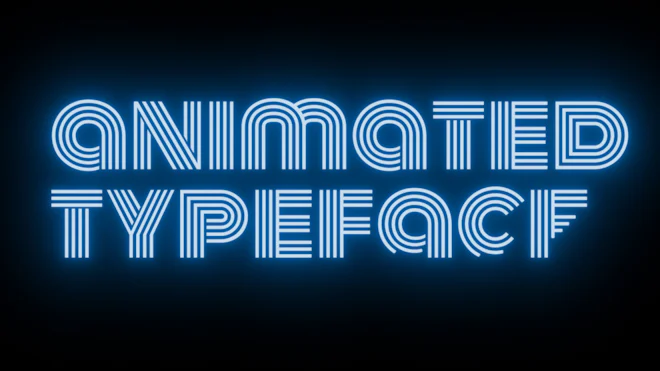
Maze - Animated Typeface is a powerful After Effects template that contains an animated font that can be used in several video projects like vlogs, explainer videos, whiteboard animations, cartoons, youtube videos, invitations, greeting cards, intros and outros. You can change the writing speed from slow to fast without any quality loss. Working with this typeface is as easy as it gets: You just need to write your desired text in a textbox and the Motion Graphics Template does the rest for you. The scenes shown in the preview movie are included.